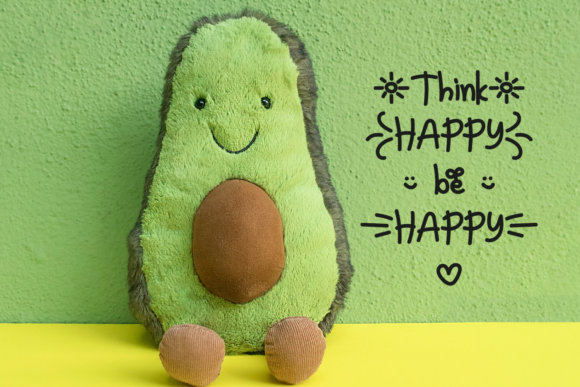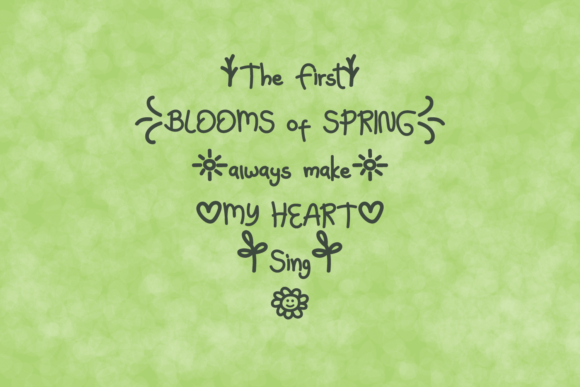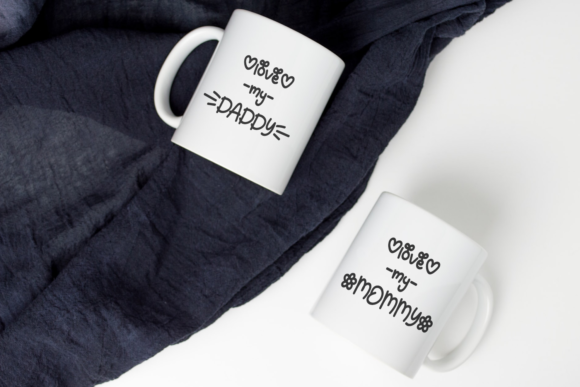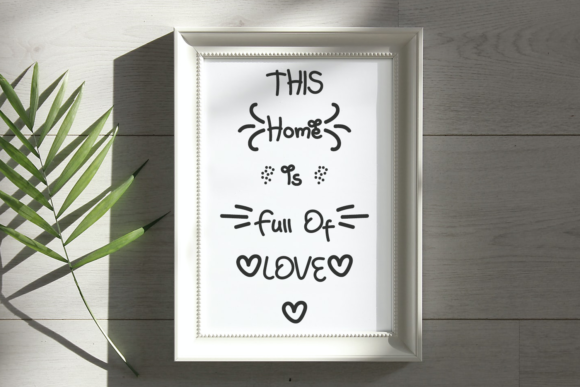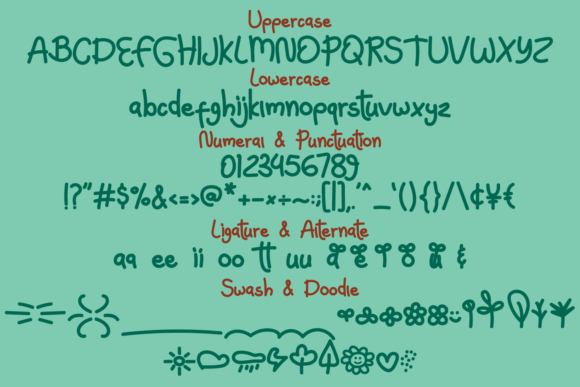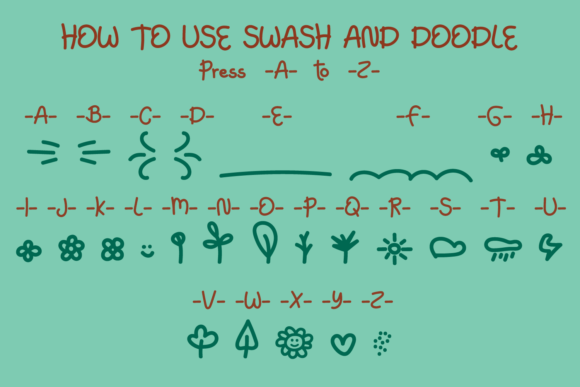
The Green Kids Font: A Playful Handwritten Delight for Creative Projects
I’ll never forget the moment I stumbled upon the Green Kids font. I was working on a whimsical craft project for a client’s kids’ party, and I was struggling to find the perfect font to bring the design to life. The project required a playful, handwritten touch that would appeal to both kids and adults. That’s when I discovered Green Kids, a delightful font that exceeded my expectations. In this article, I’ll share my experience with Green Kids, its features, and how to make the most of it in various design platforms.
An Honest Review of Green Kids Font
What I Love About Green Kids ✨
- Playful and handwritten style that’s perfect for creative projects ✅
- Suitable for a wide range of projects, from crafts to digital designs 📚
- Unique and quirky personality that adds a touch of whimsy to designs 🤪
While Green Kids is an excellent font, there are a few minor limitations to consider:
- Some users might find the font a bit too playful for formal projects 🤔
- Not all glyphs and swashes are immediately accessible; some require a bit of exploration 🔍
The Story Behind Green Kids Font
Green Kids was designed with the intention of creating a playful, handwritten font that would bring joy to creative projects. The designer aimed to craft a font that would be both fun and versatile, suitable for a wide range of applications. With its PUA encoding and extensive glyph library, Green Kids has become a favorite among designers and crafters alike. 🌟
Q: Is Green Kids suitable for digital and print projects?
Absolutely! Green Kids is a versatile font that can be used for both digital and print projects. Its clear, handwritten style ensures that it remains legible and visually appealing across various mediums.